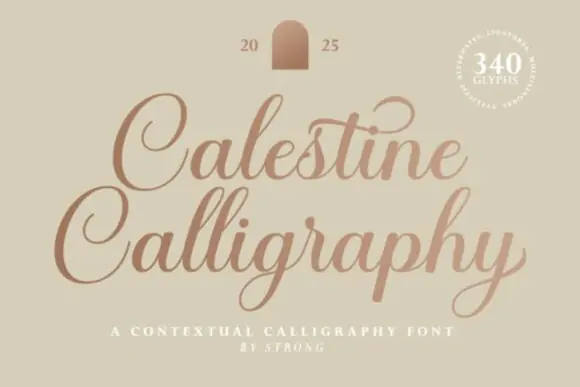
Calestine Calligraphy Font | Delicate Elegant Handwritten Script Typeface for Wedding Invitations, Logos, Branding, Stationery & Romantic Designs
Create soft, elegant, and beautifully balanced designs with Calestine Calligraphy Font, a delicate handwritten script typeface designed to bring grace and refinement to your creative projects. Its distinct and well-balanced letterforms make it a lovely choice for designs that need a romantic, stylish, and timeless handwritten feel.
Calestine Calligraphy is perfect for designers, wedding creators, boutique brands, crafters, digital product sellers, and small business owners who want to add a graceful calligraphy touch to their work. Its versatile style works beautifully across both formal and creative projects, including wedding invitations, logos, branding, stationery, greeting cards, product labels, packaging, social media graphics, quote designs, book covers, and personalized gifts.
This font is especially suitable for romantic, feminine, luxury, handmade, and boutique-style designs. Whether you are creating bridal stationery, elegant packaging, a stylish logo, or beautiful social media artwork, Calestine Calligraphy helps your typography look polished and memorable.
Design Style:
Delicate, elegant, handwritten, calligraphy, romantic, balanced, graceful, feminine, refined, soft, timeless, stylish, decorative, and versatile.
Use Calestine Calligraphy Font to give your designs a refined handwritten charm and create spectacular projects with a delicate calligraphy style.